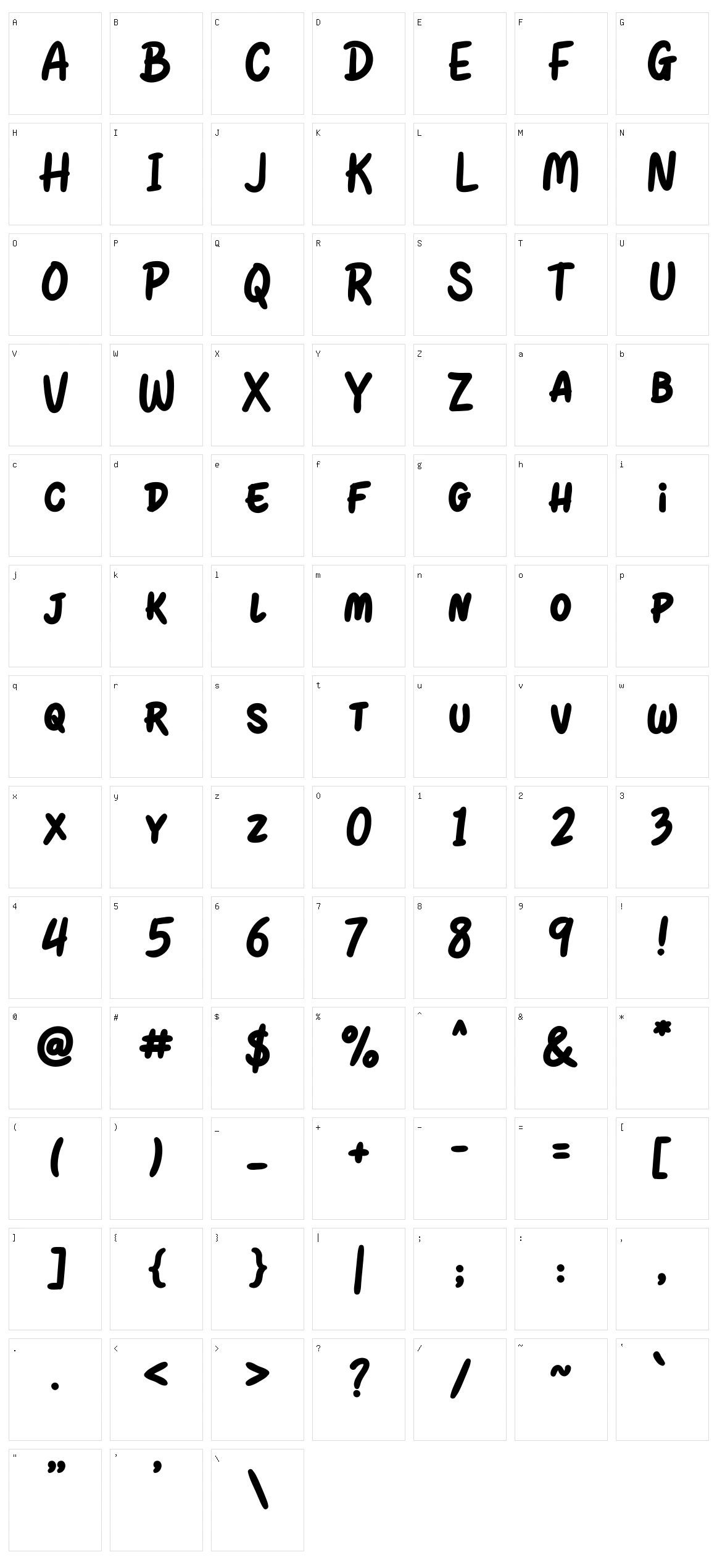
The free font Quantum Profit is carefully designed by Tokokoo Studio, showcasing a thoughtful balance of creativity and usability and falls under the Script font style. When you download the ZIP file, it contains only 27.47 KB of font files, making it lightweight and quick to download. Please review the license details below to understand permitted usage and distribution rights. If license information is not available, we recommend using this font for personal projects only or contacting the author directly for commercial usage permissions.